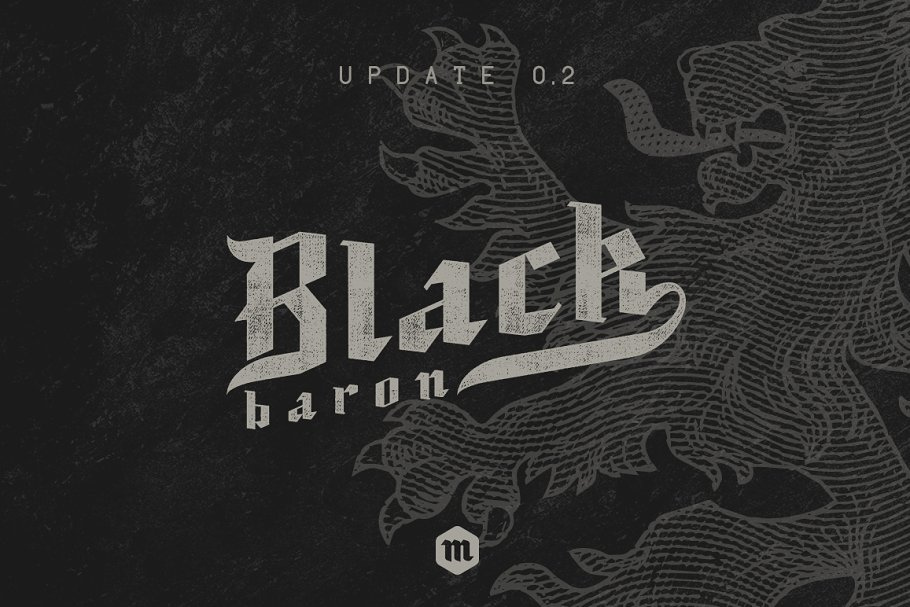
Black Baron Font
This aristocratic typeface is perfect for gothic branding, dark luxury products, medieval themes, wine labels, historic venues, mysterious campaigns, noble crests, dramatic posters, and sophisticated dark design projects.
What makes this font exciting is its noble darkness combined with aristocratic authority, offering designers a commanding typeface that captures medieval grandeur while delivering Gothic sophistication and regal mysterious appeal.
The Black Baron font family includes regular, bold, ornate, shadow, and royal variations, providing complete aristocratic design solutions for creating distinguished dark visual identities.
Whether you're developing luxury gothic brands or crafting mysterious marketing experiences, Black Baron Font Free Download brings exceptional aristocratic atmosphere and noble authenticity to every application. This regal typeface combines medieval typography traditions with contemporary dark luxury design, creating letterforms that evoke power and mystery simultaneously. The font's noble construction and elegance-ready details make it perfect for brands seeking immediate aristocratic recognition.
Black Baron Font features carefully crafted gothic styling with authentic aristocratic character that conveys genuine noble heritage. Each character has been designed to reflect medieval grandeur and royal authority, with commanding proportions and ornate elements that enhance the sophisticated aesthetic. The font's aristocratic qualities make it particularly effective for luxury brands and historic applications.
Professional designers choose Black Baron Font for projects requiring authentic gothic credibility and aristocratic atmosphere. Its noble heritage makes it exceptionally well-suited for luxury wineries, historic venues, and premium dark lifestyle brands. The font's versatile aristocratic variations allow designers to control the gothic intensity, from subtle noble elegance to full medieval grandeur.
The complete Black Baron Font package offers extensive gothic ornaments and aristocratic decorative elements that enhance the noble aesthetic. Advanced royal features allow designers to create complex aristocratic effects with multiple medieval-inspired options. This comprehensive noble toolkit ensures designers have everything needed to create authentic aristocratic communications that celebrate the timeless power of gothic elegance and medieval sophistication.